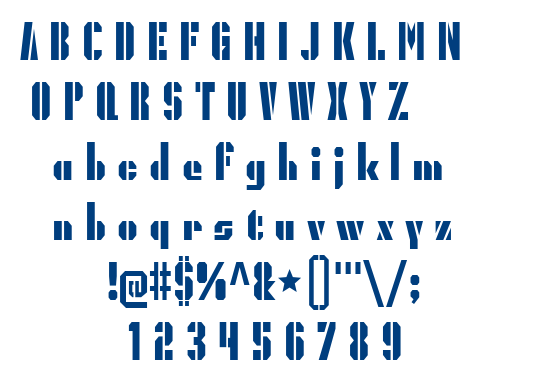
Tiny Small Medium Large President Gas font typodermic Website president-gas.ttf Download 1471 downloads Freeware Category: Fancy » Stencil, Army President Gas is a masculine, octagonal, stencil font. Don’t forget to read the files inside the zip for details. Character Map specimen sheet